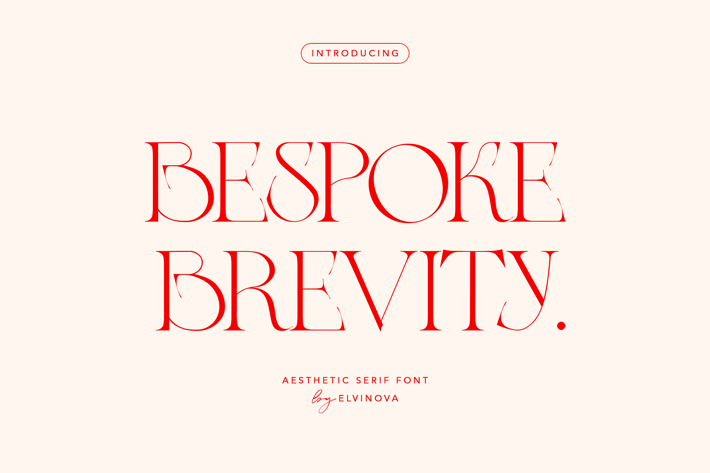
Modern Serif Font
elvinova
Bespoke Brevity is a modern serif font with a charming, chic style. It’s perfect for branding and classic designs, bringing together a fresh, authentic, and elegant feel that’s both professional and unique.